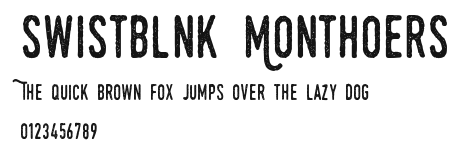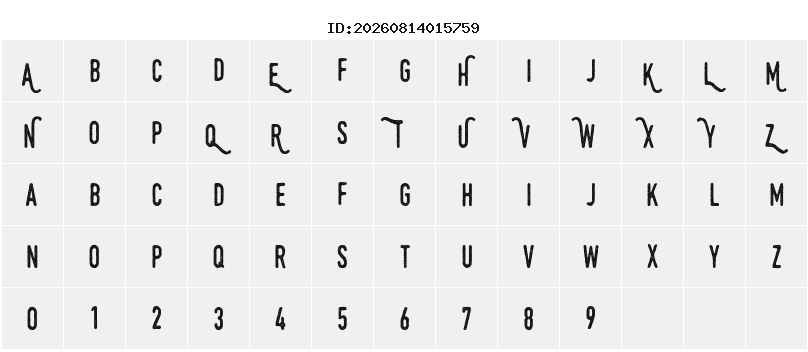
Swistblnk Monthoers Preview
• Font Name: Swistblnk Monthoers
• Designer: Agga Swistblnk
• Manufacturer: swistblnk
About Swistblnk Monthoers.otf
Swistblnk Monthoers.otf is a modern, elegant sans-serif font designed for ultimate readability and visual harmony. Perfect for branding, headlines, web design, and print materials.